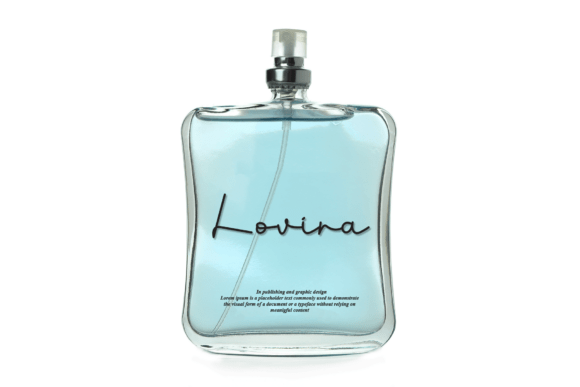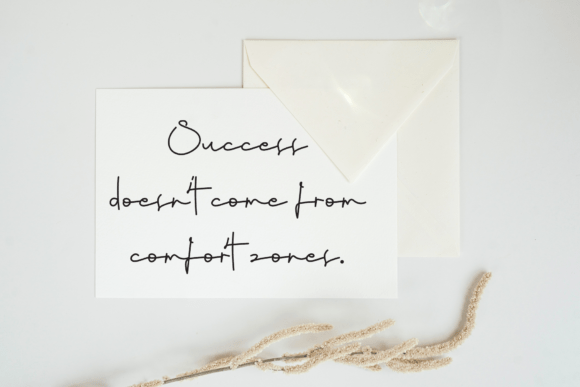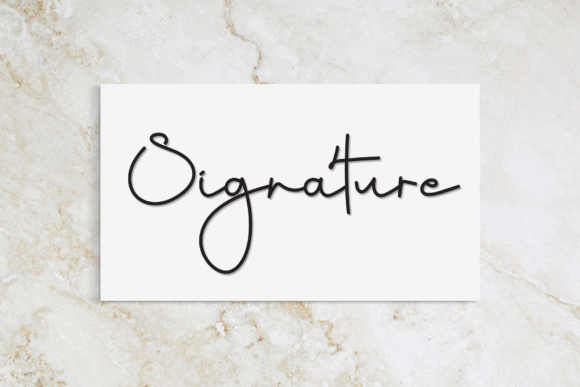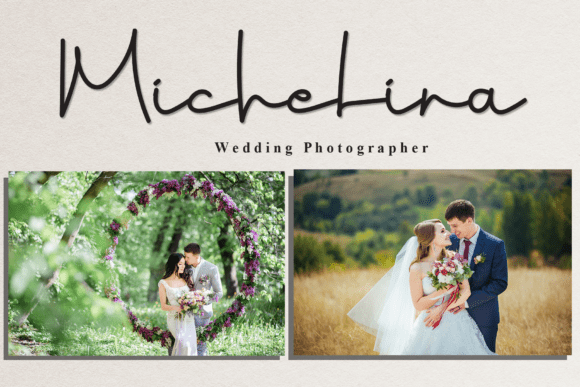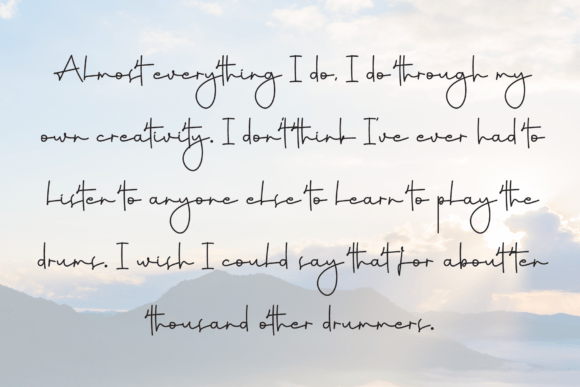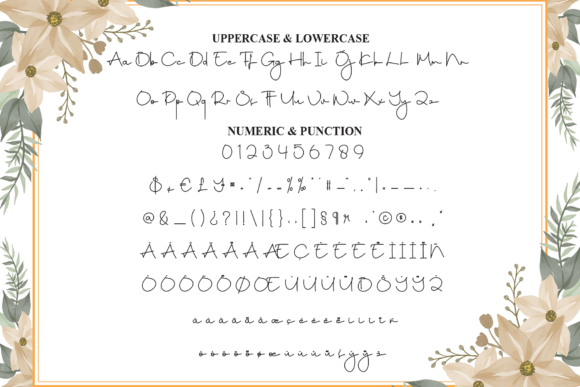
Introducing Angle Font: The Sweetest Handwritten Display Font for Your Creative Projects
Are you tired of using the same old fonts for your designs? Do you want to add a touch of sweetness and friendliness to your creative projects? Look no further than Angle Font, a charmingly engaging handwritten display font that’s perfect for making your designs stand out. With its adorable and playful essence, this typeface is an excellent choice for penning down wedding invitations, crafting cards, or simply adding a dash of delight to any design craving for a cheerful touch.
The Characteristics of Angle Font
Angle Font is a unique and captivating font that boasts a range of characteristics that make it perfect for designers and crafters. Some of its key features include:
- Handwritten style: Angle Font has a beautifully handwritten style that’s both elegant and playful. Its flowing lines and curves give it a personal touch that’s hard to resist.
- Sweet and friendly vibe: This font exudes a sense of sweetness and friendliness that’s perfect for designs that require a touch of warmth and personality.
- Playful essence: Angle Font has a playful essence that’s sure to bring a smile to your face. Its bouncy lines and carefree curves make it perfect for designs that require a bit of whimsy.
- Versatile: This font is incredibly versatile and can be used for a wide range of design projects, from wedding invitations to social media graphics.
Uses for Angle Font
Angle Font is a versatile font that can be used for a wide range of design projects. Here are some ideas to get you started:
- Wedding invitations: Angle Font is perfect for wedding invitations, with its elegant and playful style making it ideal for formal and informal wedding designs.
- Cards and stationery: This font is great for crafting cards and stationery, adding a personal touch to your correspondence.
- Social media graphics: Angle Font can add a touch of personality to your social media graphics, making them stand out from the crowd.
- Logos and branding: This font can be used to create unique and memorable logos and branding materials that showcase your personality and style.
Tips for Using Angle Font
Here are some tips for getting the most out of Angle Font:
- Use it sparingly: Angle Font is a bold font, so use it sparingly to make the most impact. Use it for headings or titles, and pair it with a simpler font for body text.
- Experiment with colors: This font looks great in a range of colors, so experiment with different hues to find the perfect match for your design.
- Pair it with other fonts: Angle Font pairs well with other fonts, so don’t be afraid to experiment with different combinations to find the perfect look for your design.
Angle Font is a charmingly engaging handwritten display font that’s perfect for designers and crafters looking to add a touch of sweetness and friendliness to their designs. With its adorable and playful essence, this typeface is an excellent choice for a wide range of design projects, from wedding invitations to social media graphics. So why not give Angle Font a try and see how it can bring a dash of delight to your creative masterpiece?
Whether you’re a seasoned designer or a crafty DIY enthusiast, Angle Font is sure to inspire your creativity and bring a smile to your face. So go ahead, get creative, and enjoy the fun vibe this font brings to your designs!